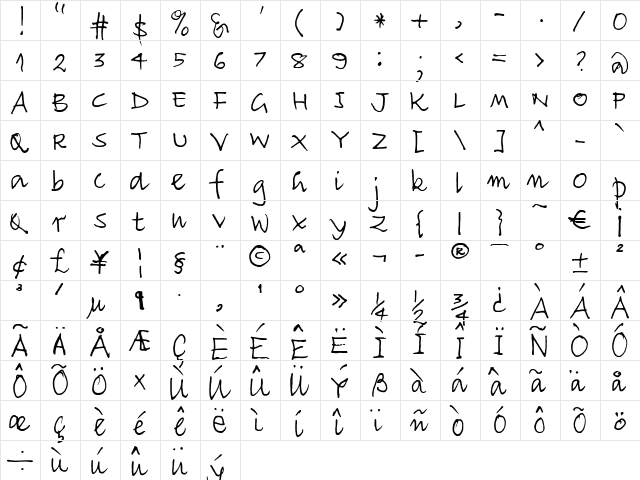
FG Hjalmar Regular
Design Context for FG Hjalmar Typeface
FG Hjalmar is a composed and adaptable typeface that performs quietly and consistently across a wide range of design contexts.